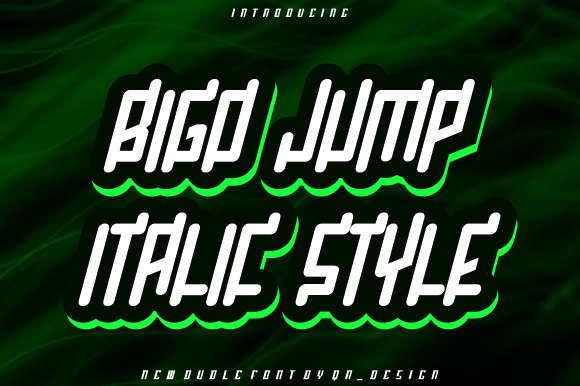
The Moment That Sparked a Design
Have you ever had one of those moments where you see a font and immediately know you have to use it for your next project? That’s exactly what happened to me when I stumbled upon the Bigo Jump Font. Its bold, authentic display style spoke directly to my creative soul, and I knew I had to dive deeper.
Bigo Jump Font is a versatile and modern display font, perfect for a wide range of branding projects. Whether you’re designing a logo, a t-shirt, or an e-sport branding, this font is sure to make your project stand out. As a designer, you’re constantly on the lookout for unique and authentic fonts that can elevate your work and help you connect with your audience.
Bigo Jump Font Key Features
- Unique Characteristics: Bigo Jump Font features a bold and playful design, with a unique blend of rounded and angular shapes, making it perfect for creating eye-catching headlines and titles.
Bigo Jump Font Review
I’ve had the chance to work with the Bigo Jump Font, and I must say it’s a unique and eye-catching choice for digital projects. ✨ The font’s playful and energetic feel makes it perfect for kids’ content, entertainment, and social media platforms.
Here are some things that work well with the Bigo Jump Font:
- ✨ Highly legible even at small sizes, making it suitable for mobile apps and social media.
- ✨ Easy to customize and pair with other fonts for a cohesive look.
- ✨ Supports a wide range of languages, including non-Latin scripts.
- ⚠️ May not be suitable for formal or professional projects due to its playful nature.
- ⚠️ Can be challenging to read at very large sizes, which may affect its use in certain applications.
- ⚠️ Limited font weights and styles may limit its versatility.
Overall, the Bigo Jump Font is a solid choice for digital projects that require a fun and engaging look. While it may have some limitations, its unique feel and high legibility make it a great option for the right projects.
Tips for Getting the Most Out of Bigo Jump Font
Use Bigo Jump Font for bold and eye-catching headlines.
Pair Bigo Jump Font with other fonts to create a unique and stylish design.
Experiment with different font sizes and colors to maximize the impact of Bigo Jump Font.
Bingo Jump Font is ideal for:
Headlines and titles
Brand logos and identities
Marketing materials and advertisements